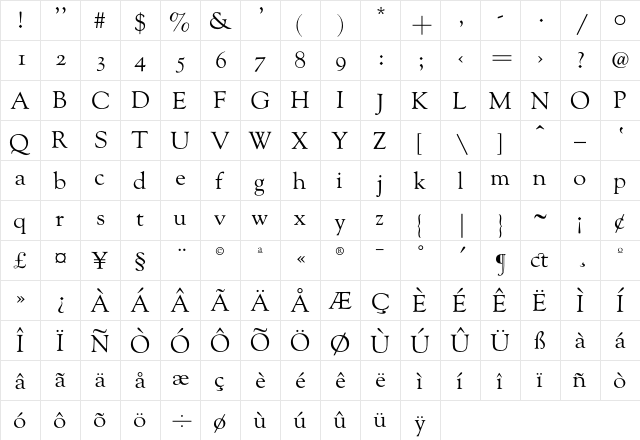
GoudyOldstyleH Regular
Design Context for GoudyOldstyleH Typeface
GoudyOldstyleH carries the refined structure of traditional serif typography, with bracketed terminals and considered proportions that communicate credibility and craft.
Pro Tip: Use GoudyOldstyleH for editorial body copy and considered headline work. Pair with a neutral sans for UI elements or captions to create a classic hierarchy.